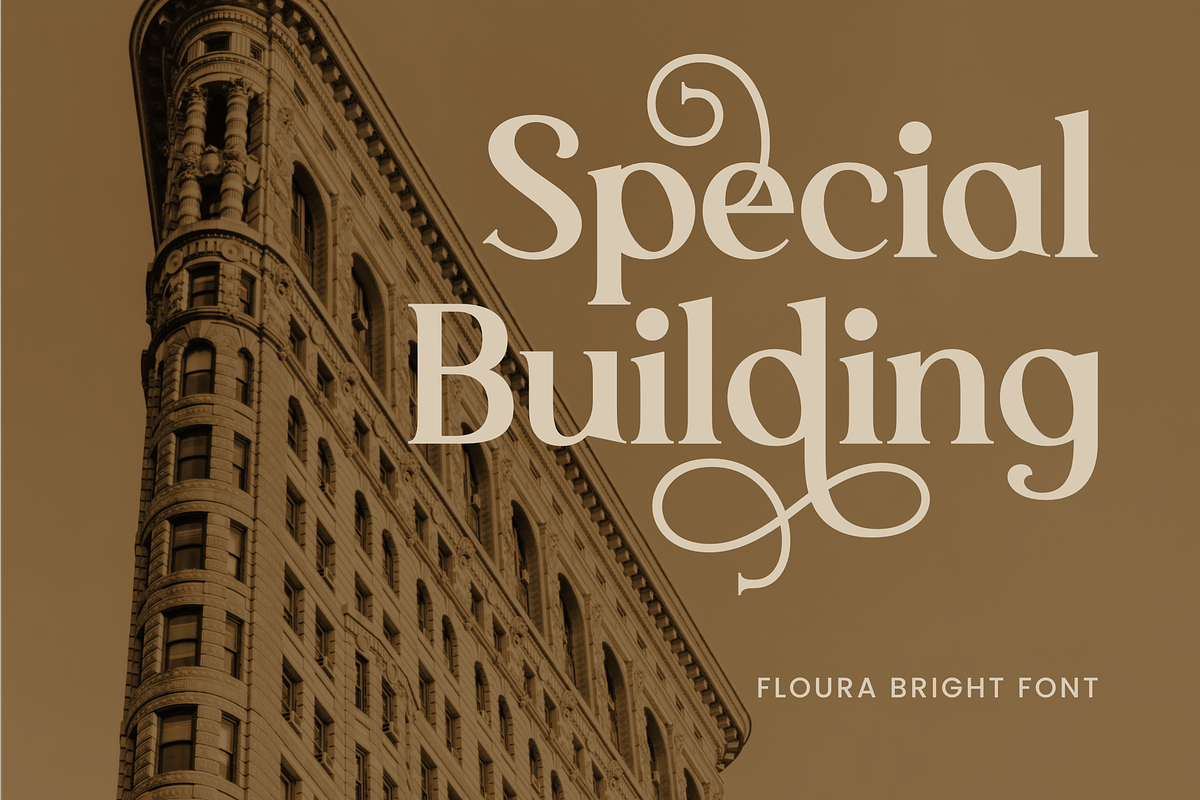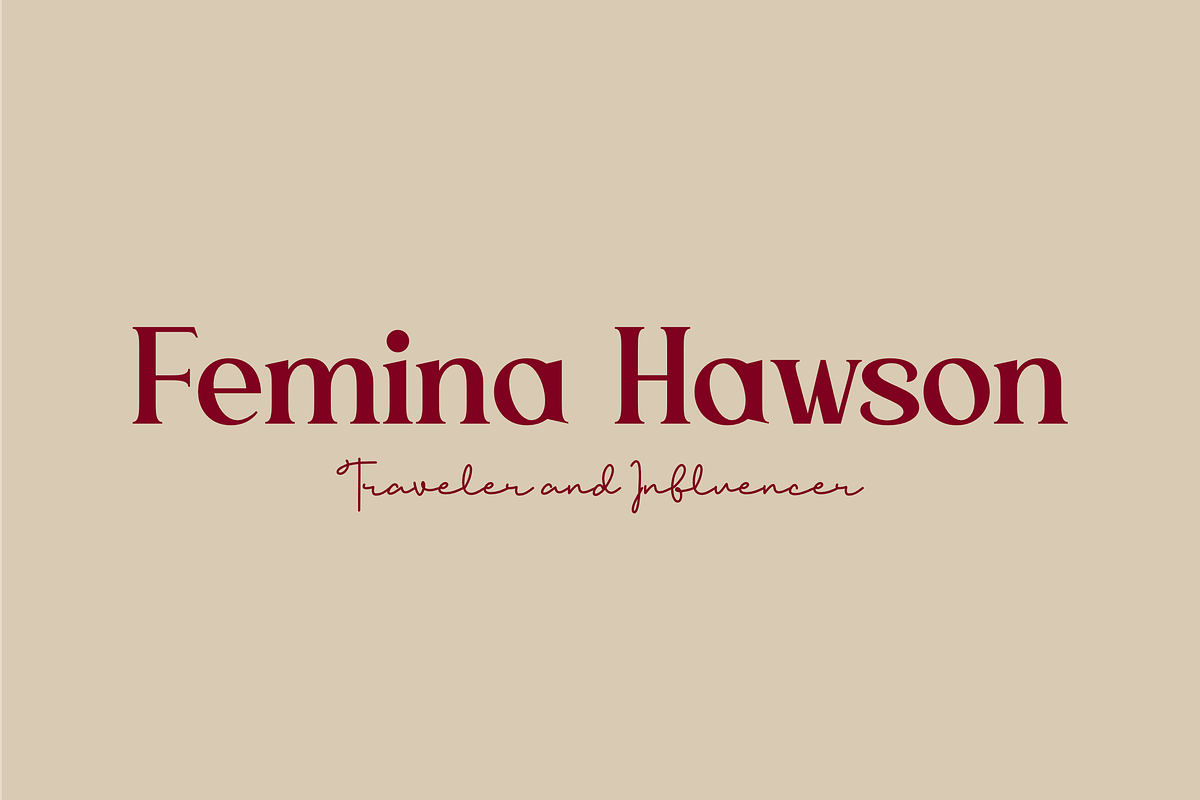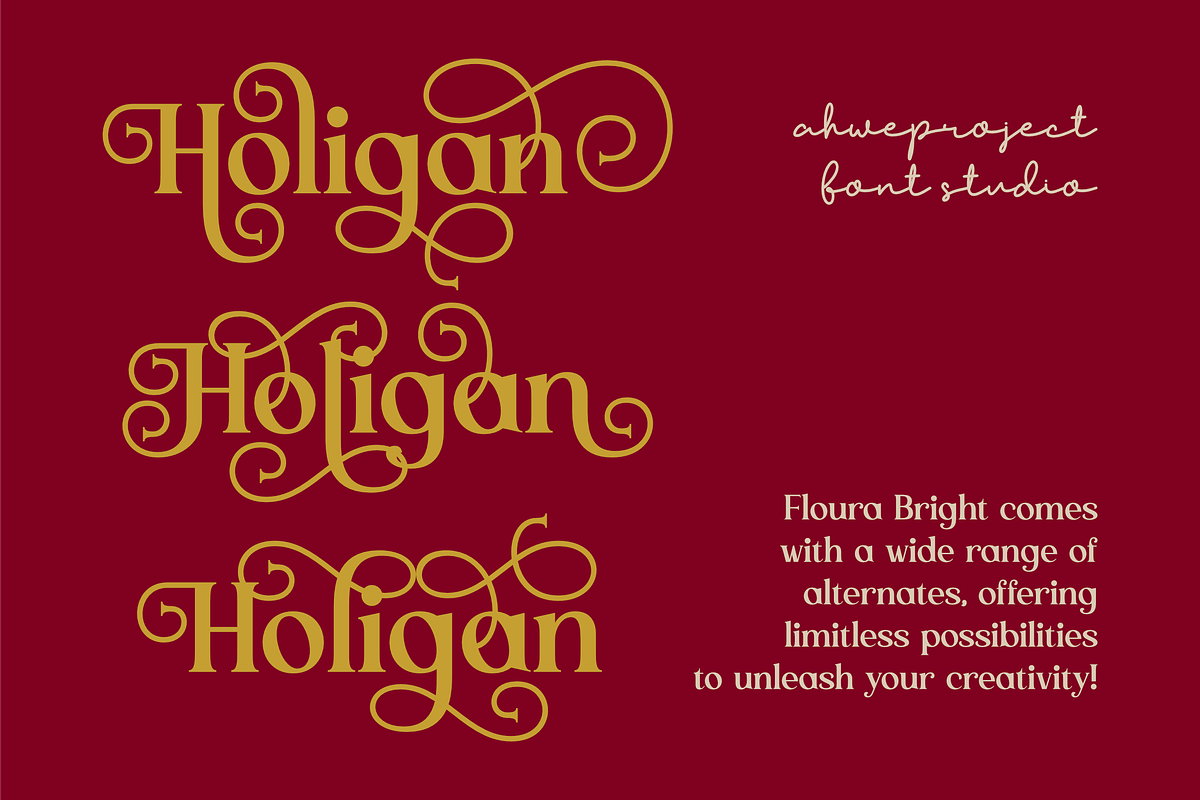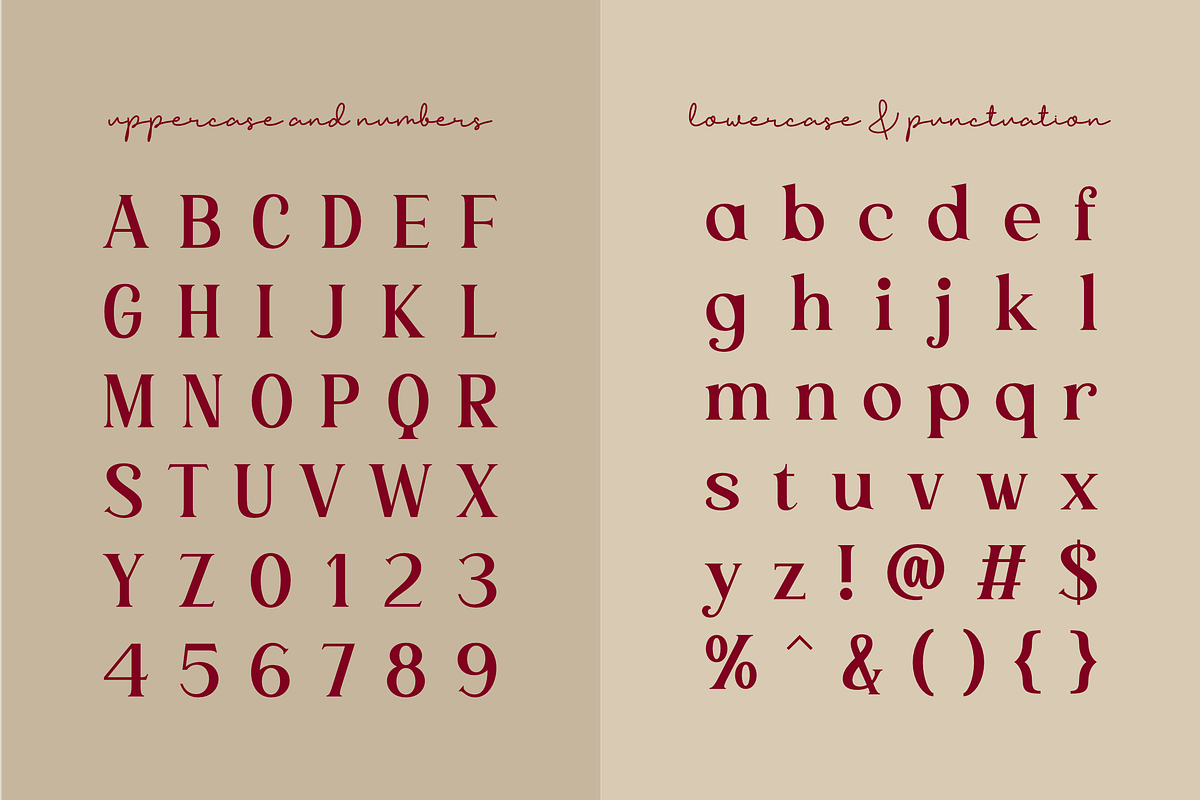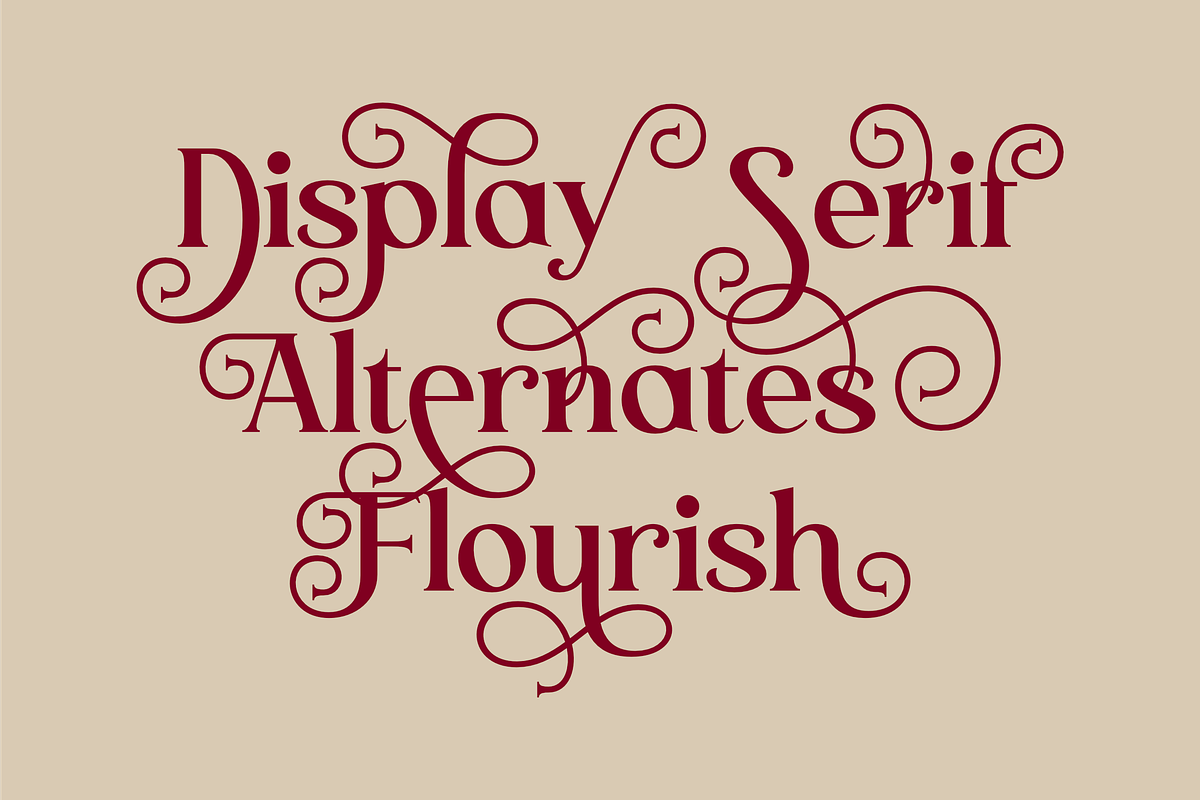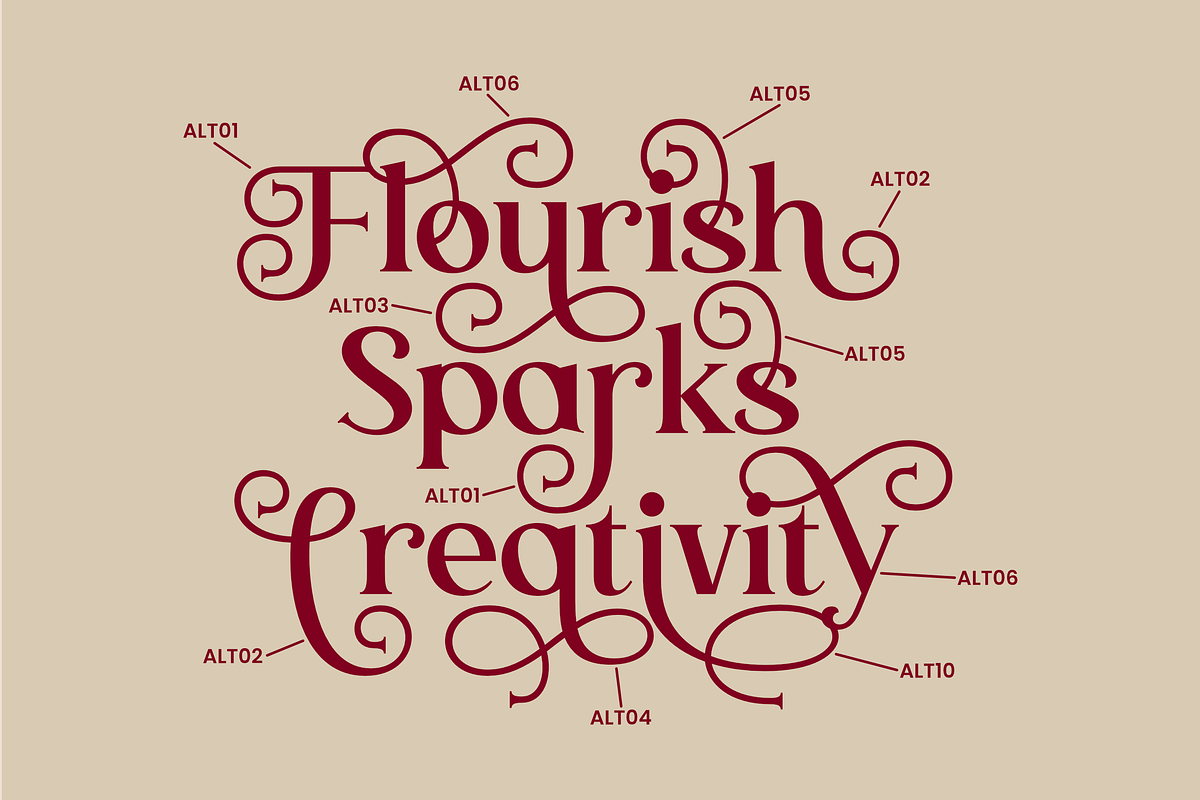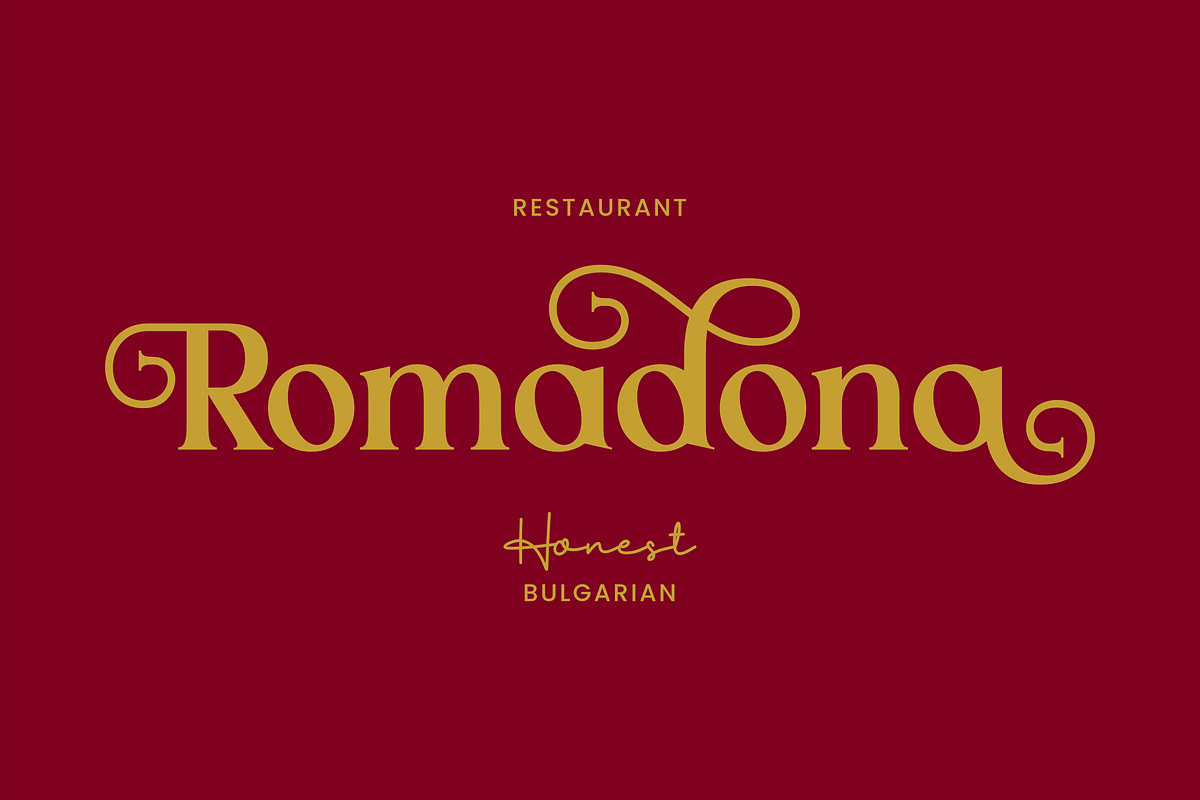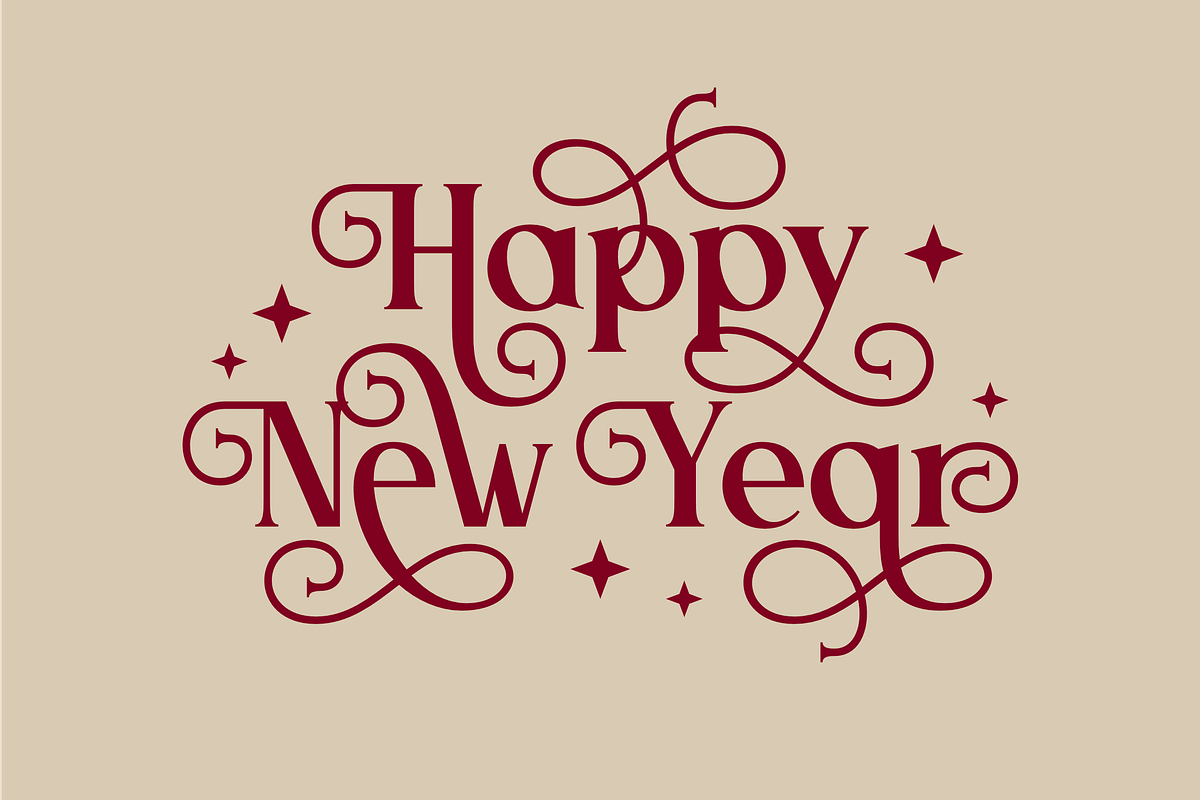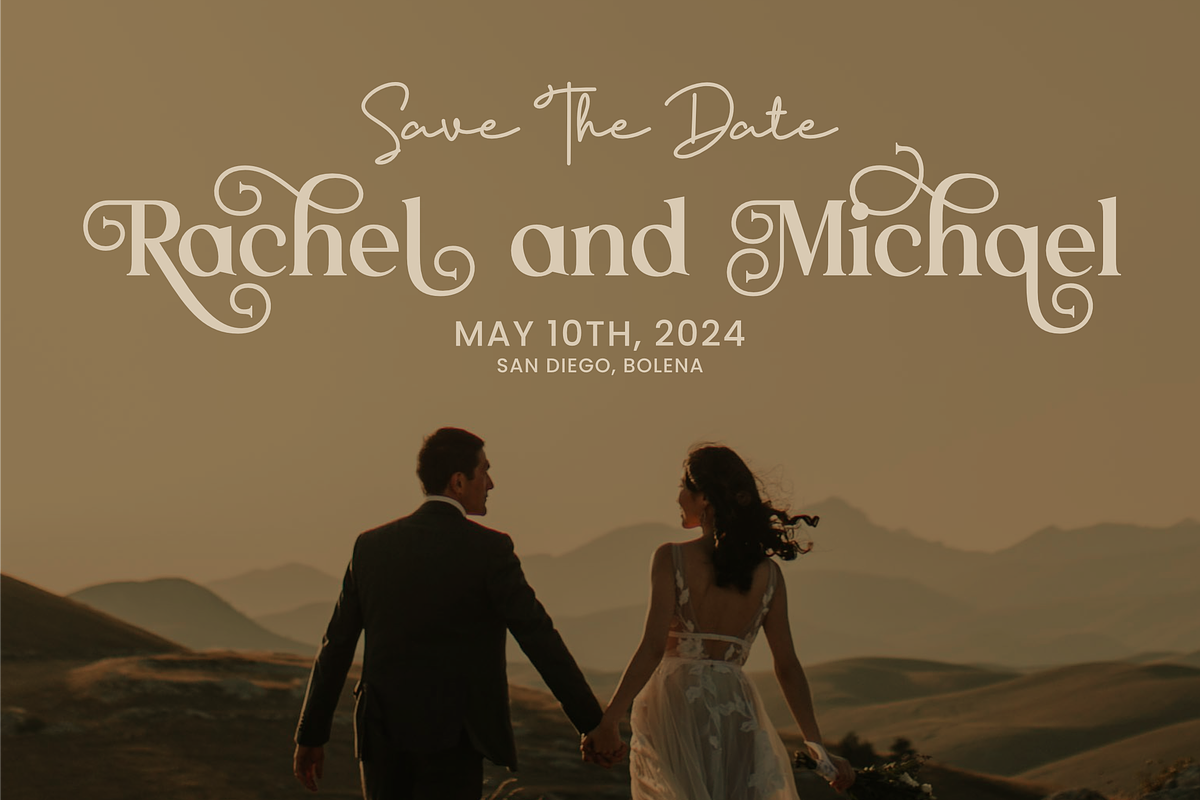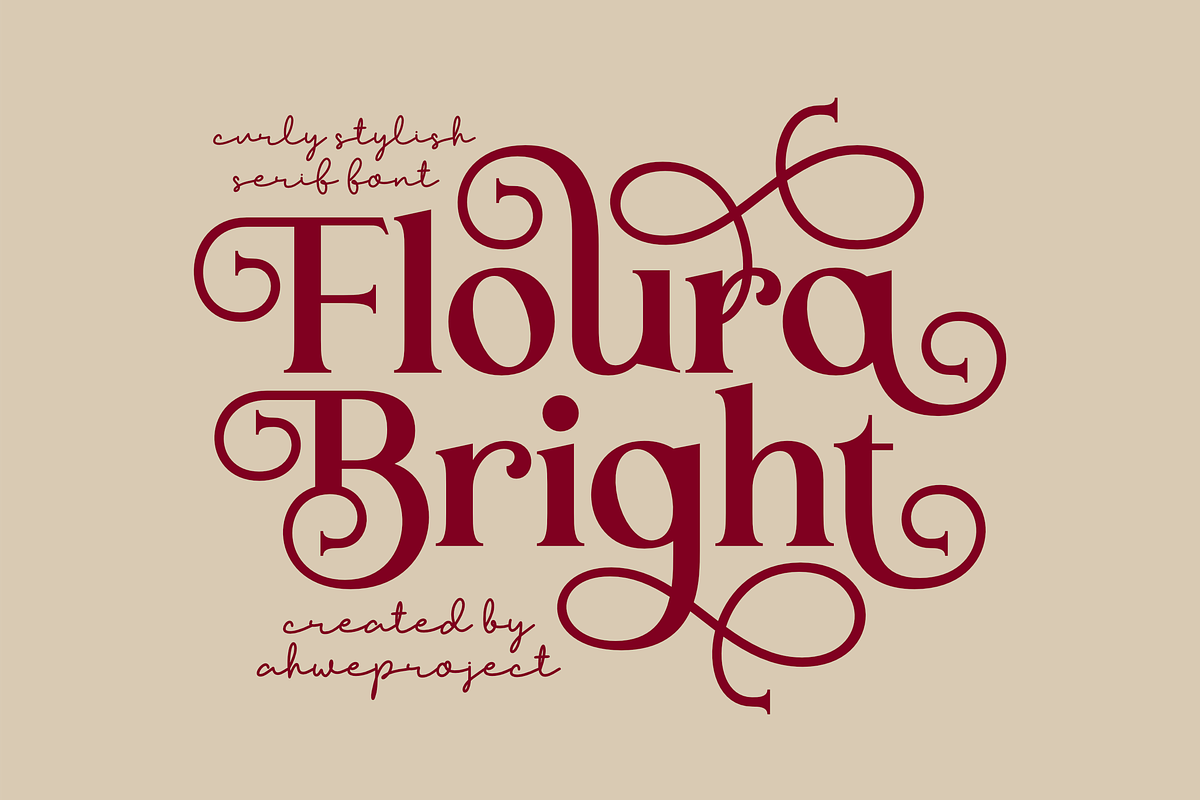
Floura Bright
Floura Bright is a curly and stylish serif font that combines elegance and creativity in one design. Its swirly details and bold structure make it perfect for projects that require a touch of sophistication and charm. Whether you’re working on branding, invitations, or editorial designs, Floura Bright adds a unique personality to your work. Ideal for luxury themes, feminine designs, and anything that calls for an ornate yet legible typeface.